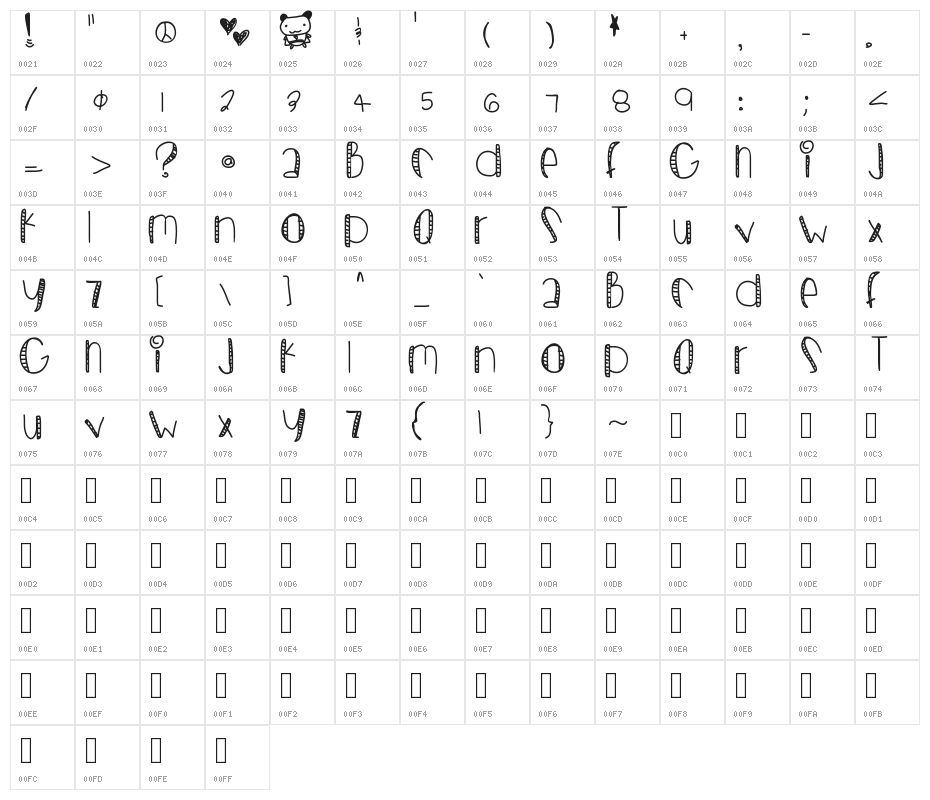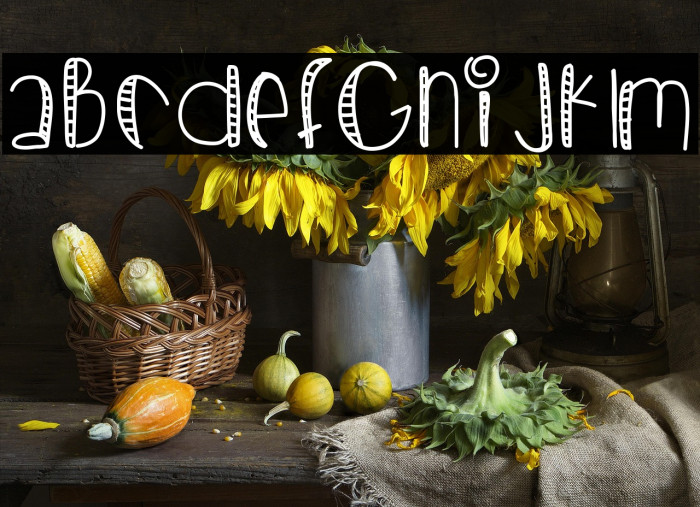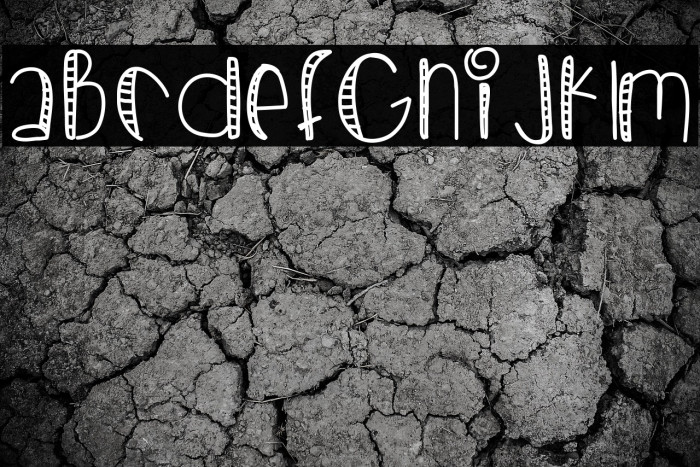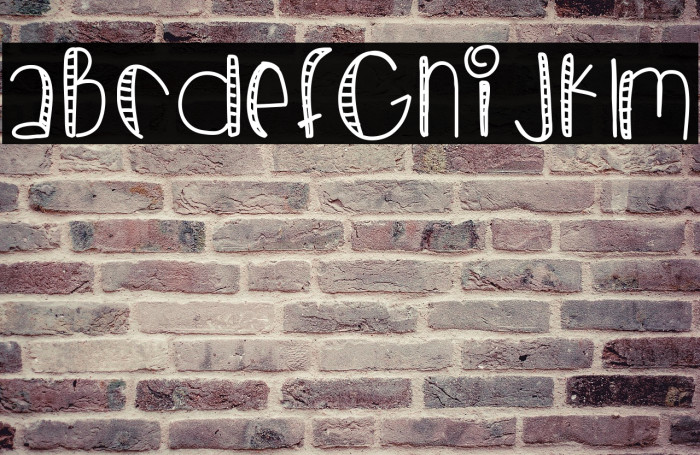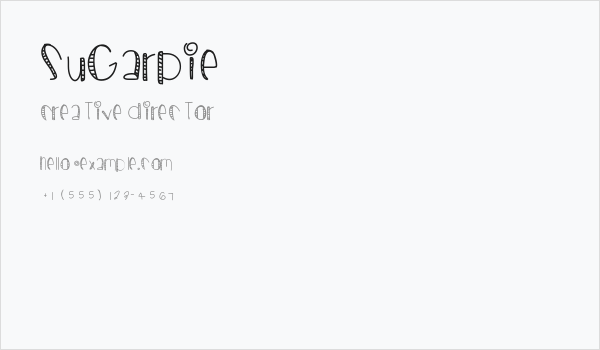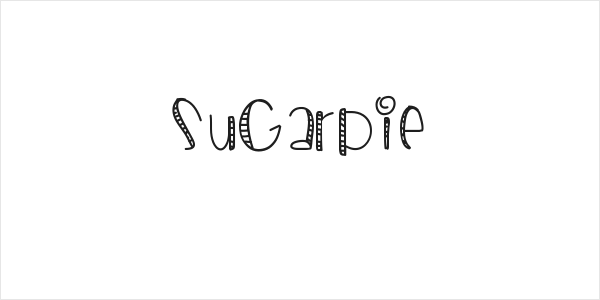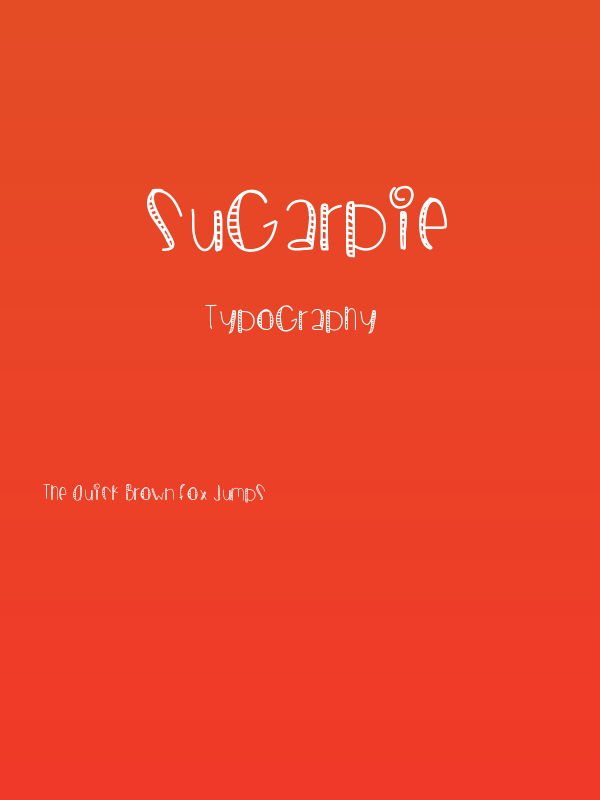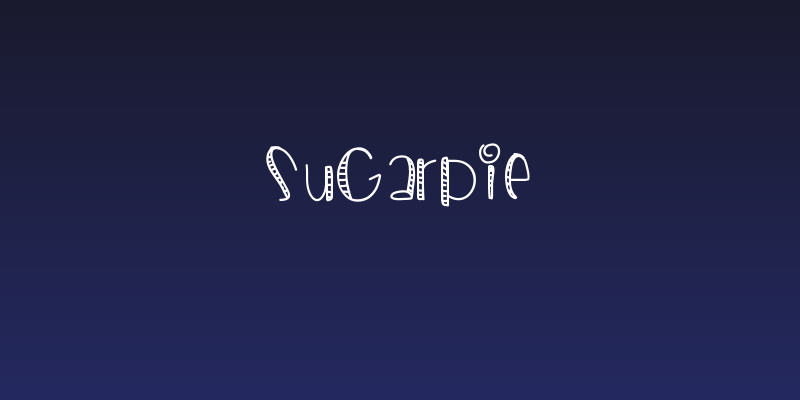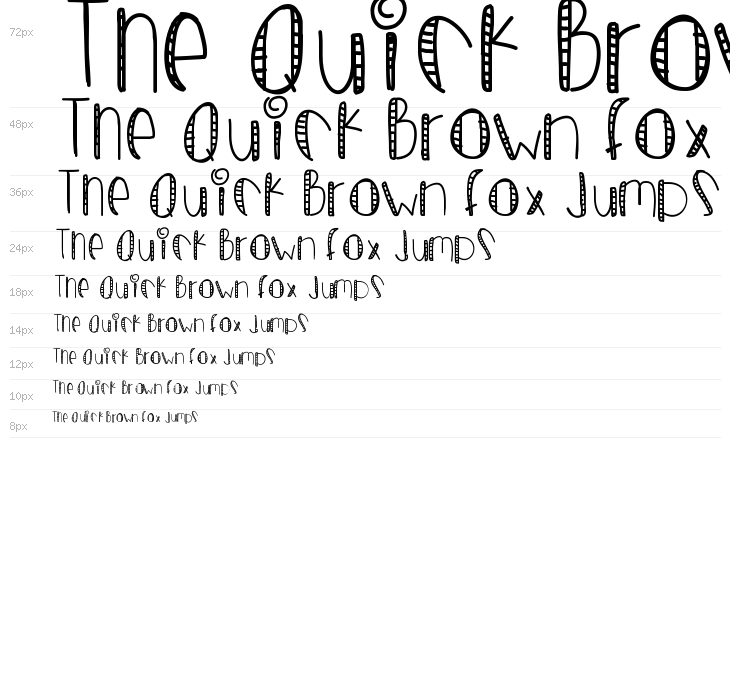
SugarPie Font
SugarPie Description
This playful and whimsical font features a hand-drawn style with a unique, quirky character. Each letter is adorned with decorative elements, such as stripes and dots, giving it a lively and fun appearance. The font maintains a consistent baseline, but the varying heights and widths of the characters add to its charm. The numbers and special characters are equally playful, with some incorporating cute illustrations, like a panda and hearts. This font is perfect for projects that require a touch of creativity and personality.
| Overall Style | Whimsical |
| Proposed Projects | Ideal for children's books, greeting cards, playful branding, and creative posters. |